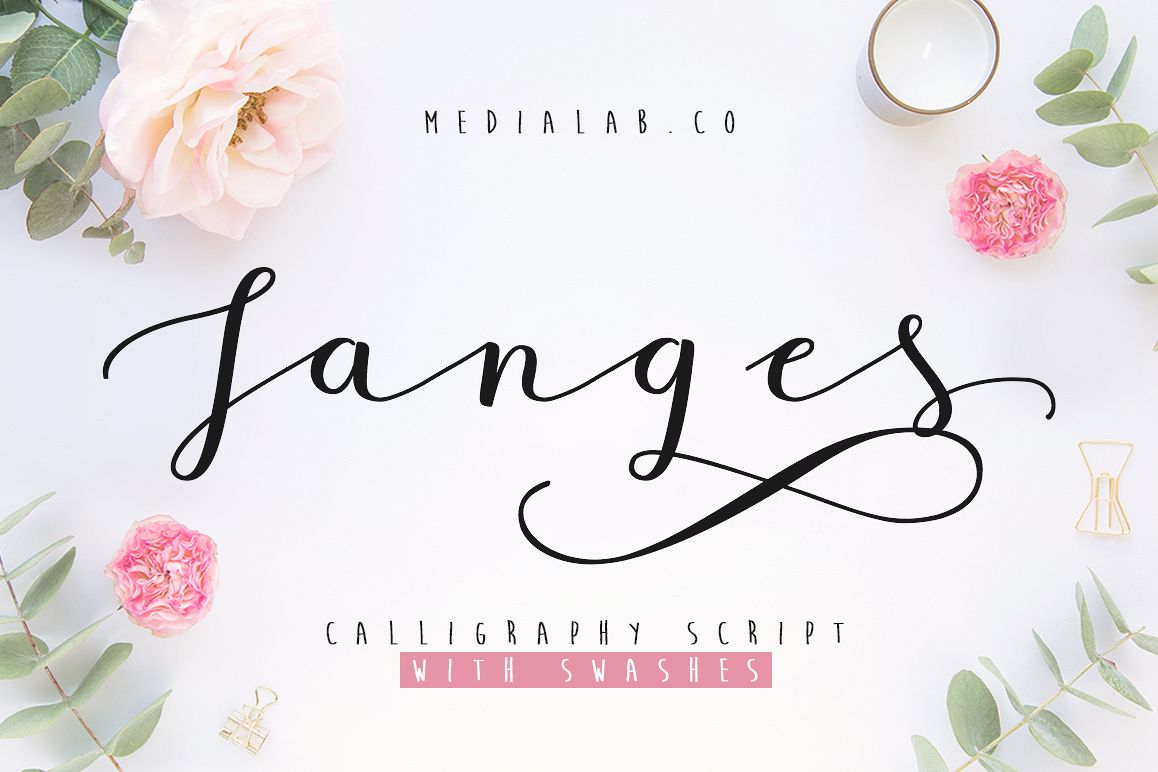
Janges handwritten font
Janges-Regular
Janges script
This handwritten script has been attentively written, with gentle curves to produce a font thats completely distinctive and original. Perfect for adding a elegant and unique touch to your lettering projects and branding